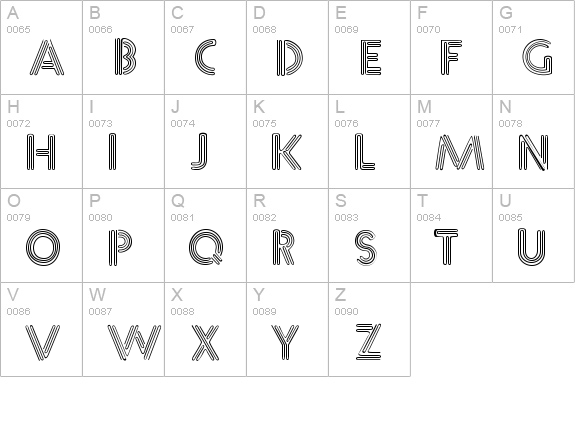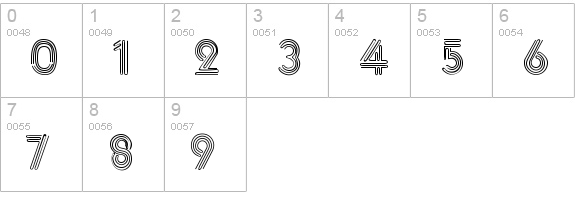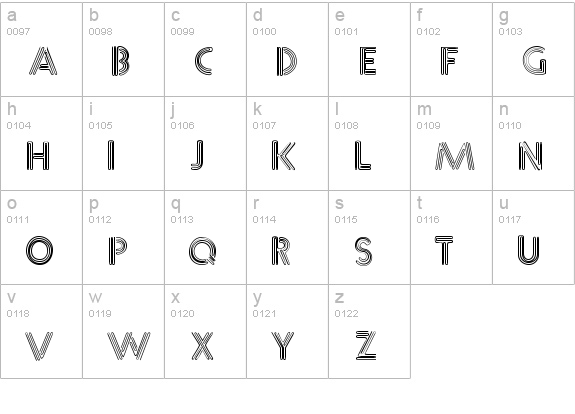
GlassTubesFour font is a unique and eye-catching typeface that brings a modern and edgy feel to any design project. Its sleek and futuristic appearance is perfect for adding a touch of sophistication to logos, posters, and other creative works. The design features a series of interconnected glass tubes that form each letter, creating a visually striking effect. What sets GlassTubesFour font apart is not only its distinctive look, but also the fact that it is available for free download. You can easily access this font at FontsMarket.com and start using it in your projects right away. Whether you're looking to make a bold statement or simply add a touch of flair to your designs, GlassTubesFour font is sure to impress with its modern and stylish aesthetic.